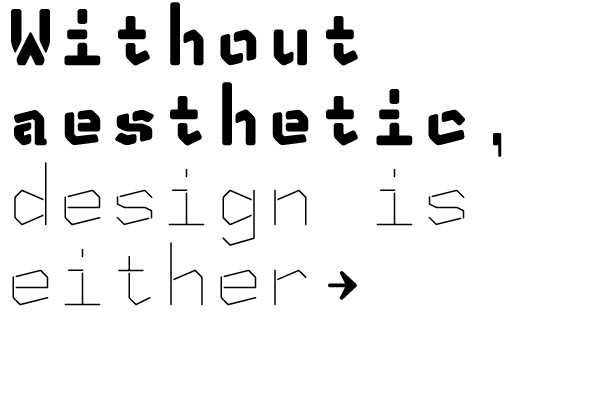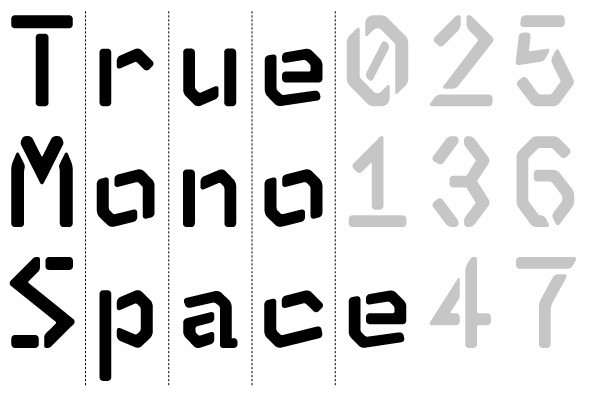
NK_Fracht (meaning Cargo or Freight) is a stylised version of Neue Konstrukteur. It is more suited for headline and display purposes, but can also be used quite successfully for short blocks fo running text and captions.